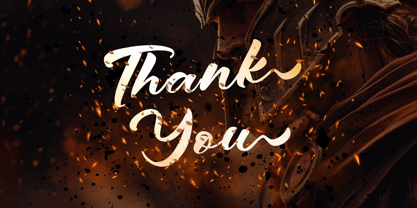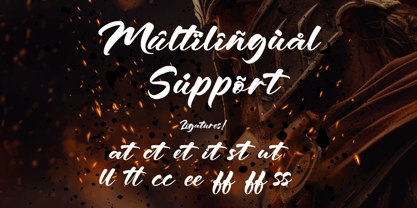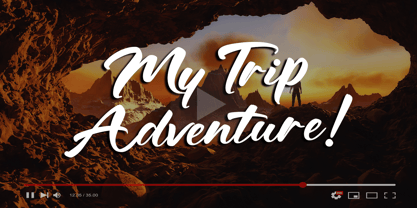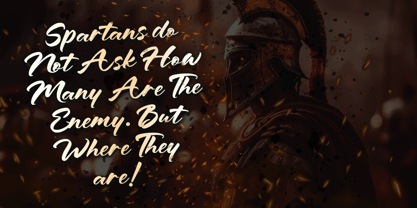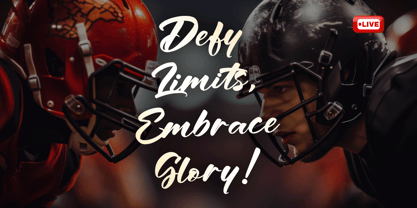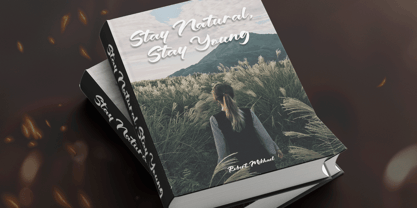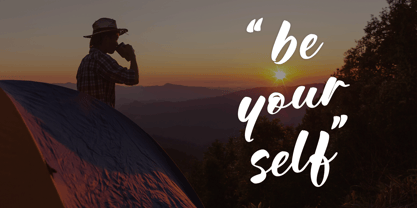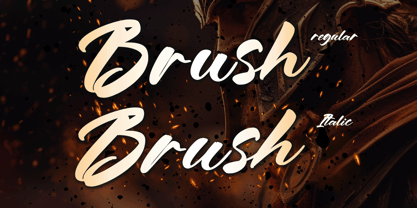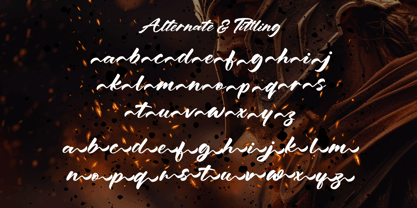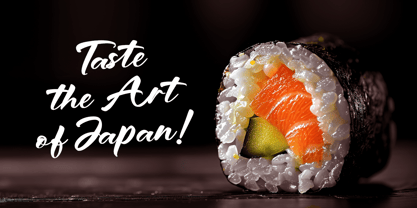
Spartan Brush
by Letterara
The Spartan Brush Font Family was designed by Thomas Aradea and published by Letterara. Spartan Brush contains 2 styles and family package options. More about this family
Introducing Spartan Brush — a fearless handwritten brush font forged with the fiery spirit of warriors. Each stroke carries the raw energy of defiance, blending natural hand-painted motion with bold confidence. Designed to radiate power and passion, Spartan Brush is perfect for impactful logos, battle-ready posters, cinematic titles, and marketing promotions that demand unstoppable strength. With dynamic alternates, titling options, expressive ligatures, and full PUA encoding, this font gives you complete creative freedom. Spartan Brush doesn’t just write words—it roars with the unyielding soul of a Spartan. Ready to conquer your next project? Let Spartan Brush be your weapon of design glory.
Designers: Thomas Aradea
Foundry: Letterara